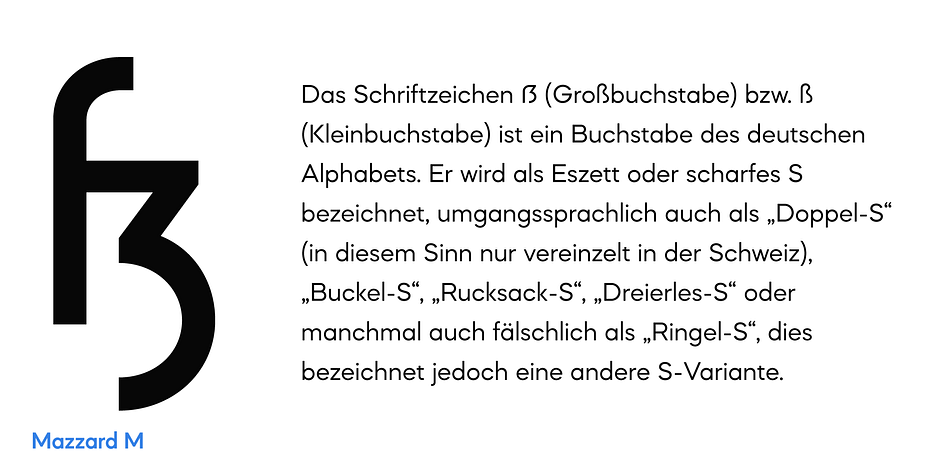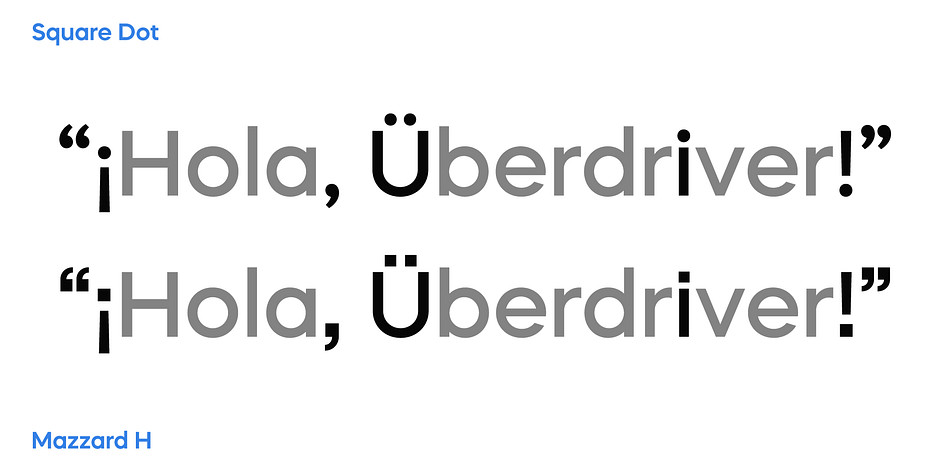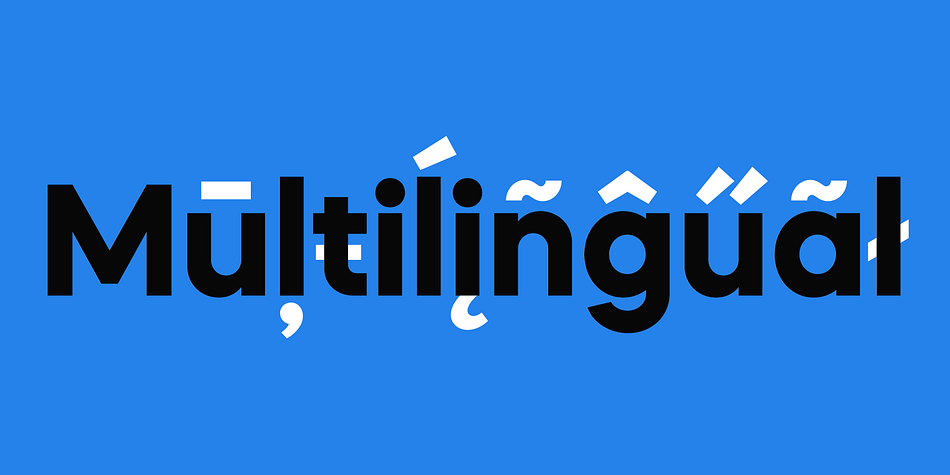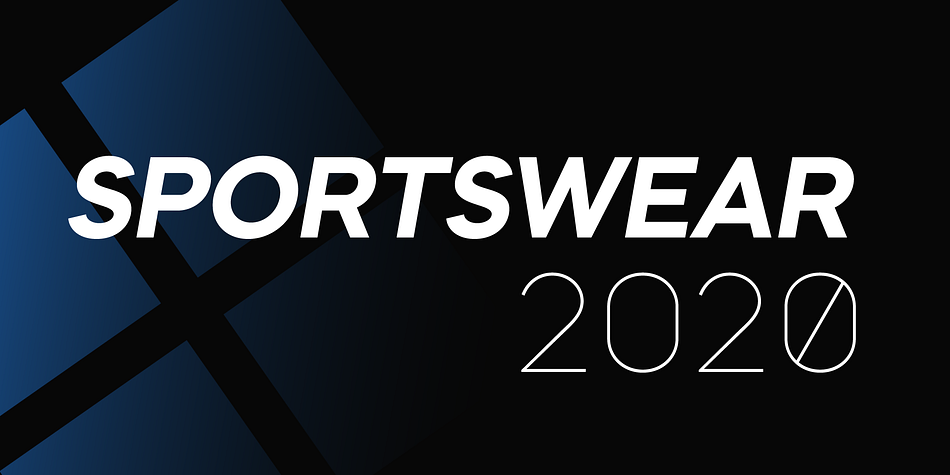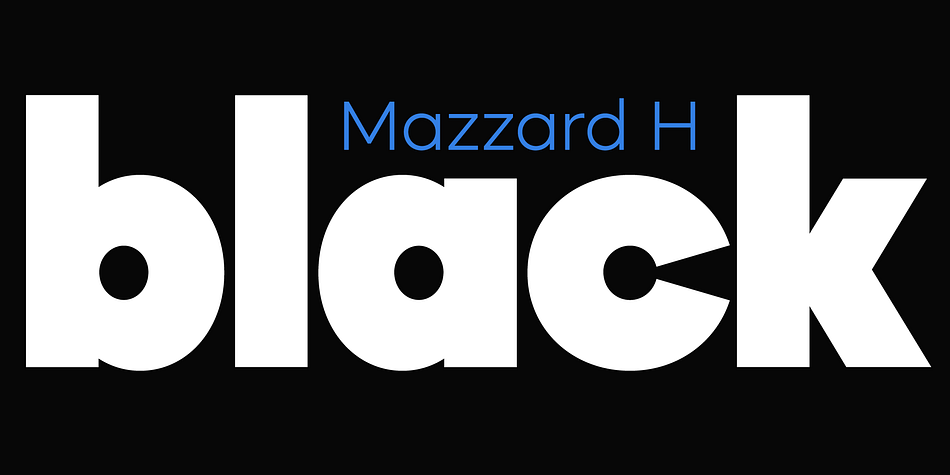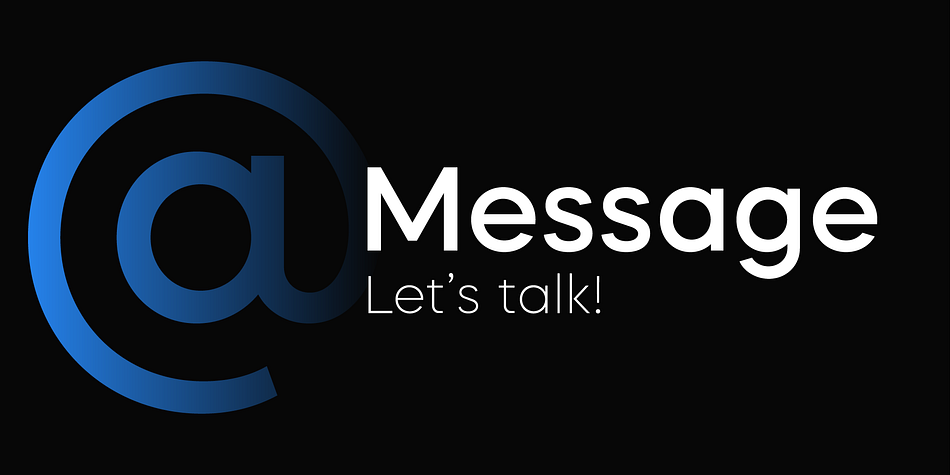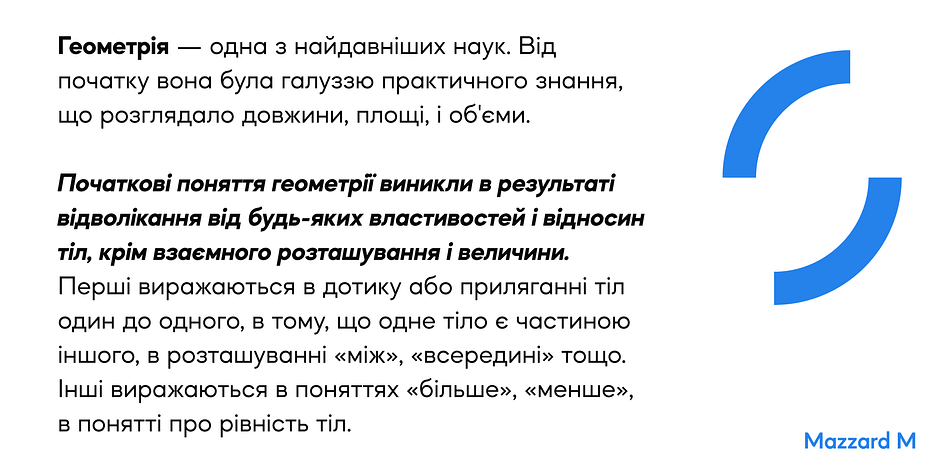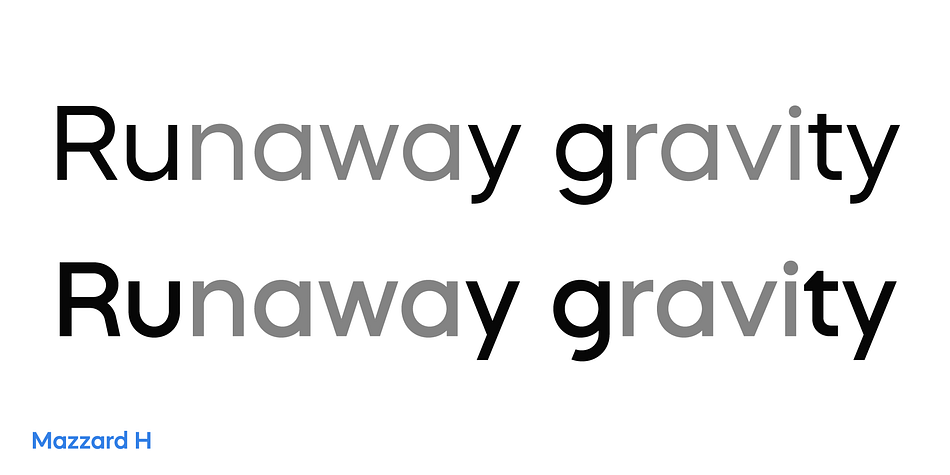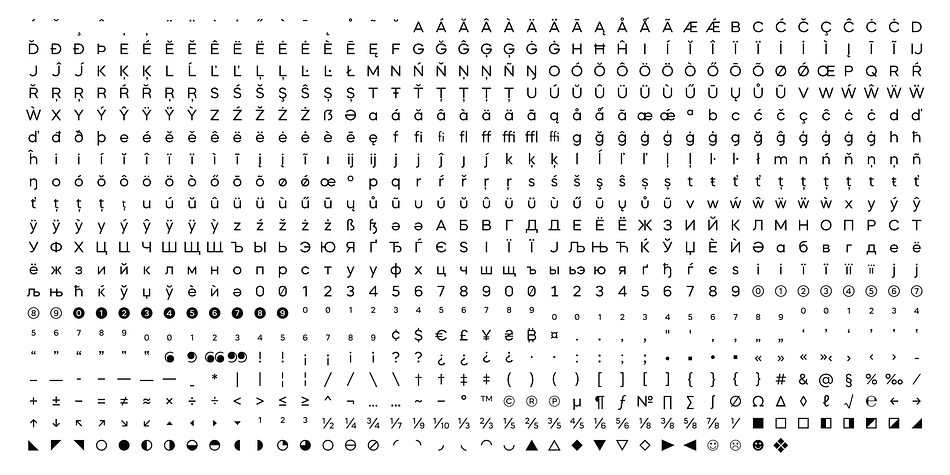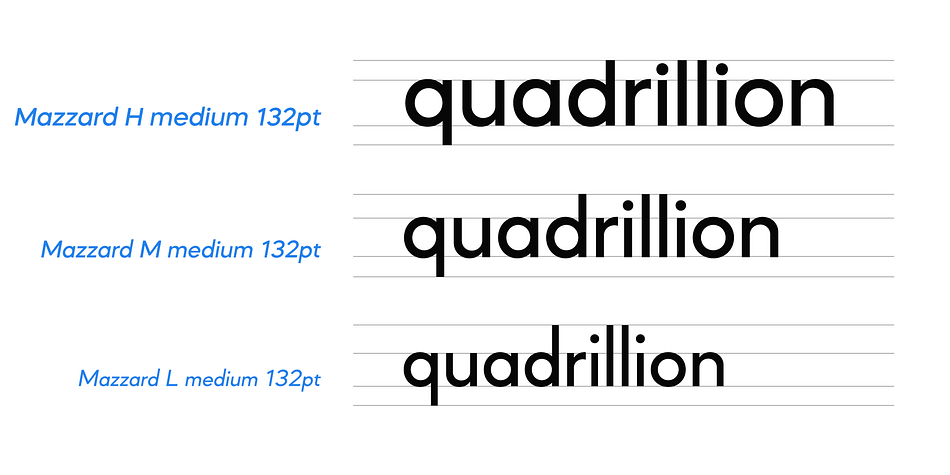
Mazzard L is a sans serif font family. This typeface has eighteen styles and was published by Pepper Type.
Mazzard is a superfamily of three geometric grotesques with three different x-heights.
It features rich language support including Cyrillic, and offers a wide variety of alternate forms to choose from.